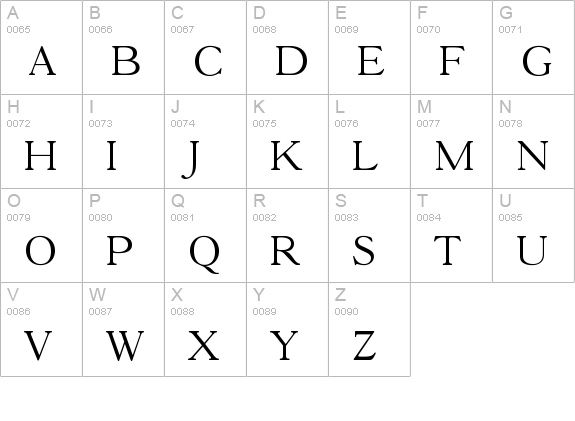
Gascogne-Light is a refined, elegant variant in the Gascogne typeface family \xE2\x80\x94 well suited to elegant body text, refined sub-headings, and luxury branding.
Gascogne-Light font is a versatile and elegant typeface that exudes sophistication and style. With its clean lines and modern aesthetic, this font is perfect for a wide range of design projects, from branding to editorial design. The sleek and minimalistic design of Gascogne-Light font makes it a great choice for creating a contemporary and polished look. The best part about Gascogne-Light font is that it is completely free to download at FontsMarket.com. This means that you can easily access this high-quality font without any cost, making it a valuable resource for designers and creatives looking to elevate their projects. Whether you're working on a professional design project or a personal creative endeavor, Gascogne-Light font is sure to add a touch of sophistication and elegance to your work.